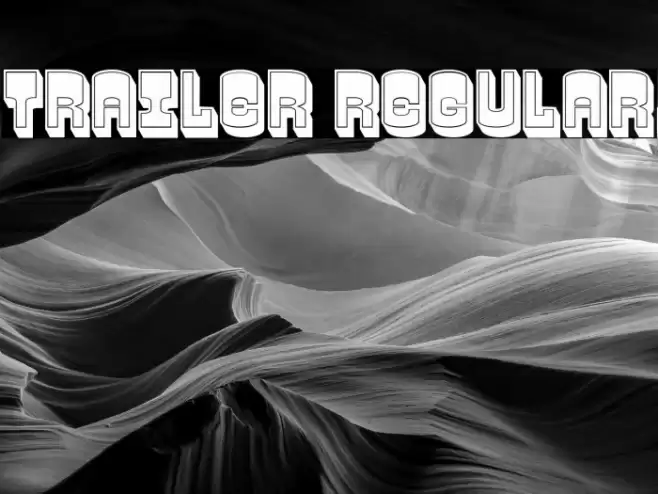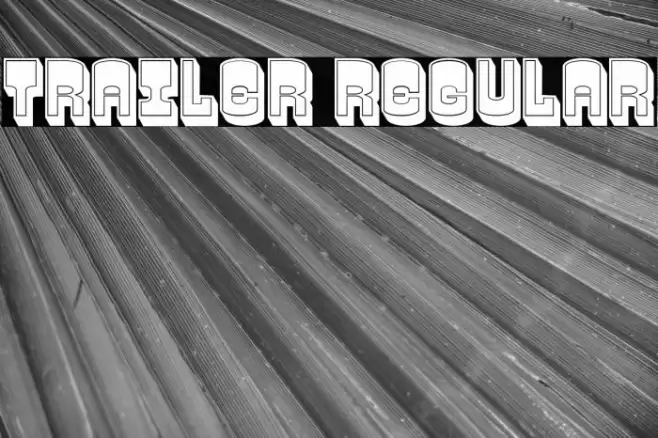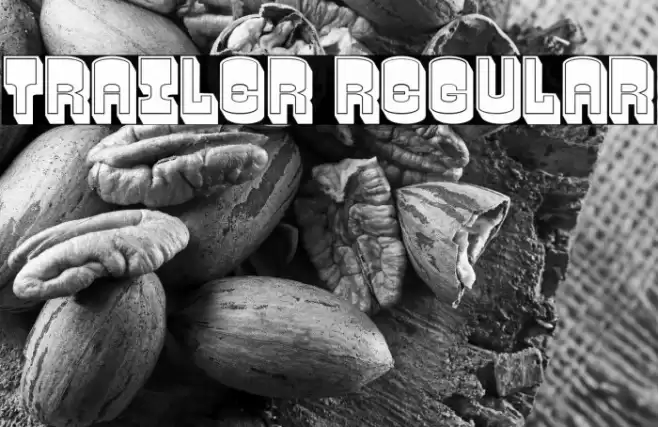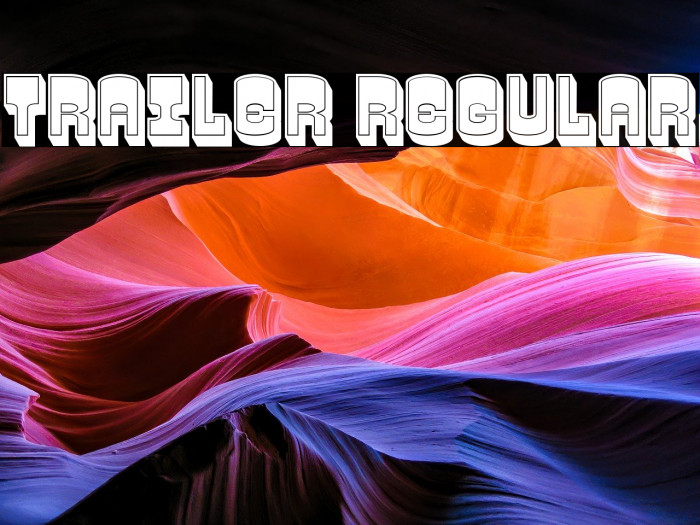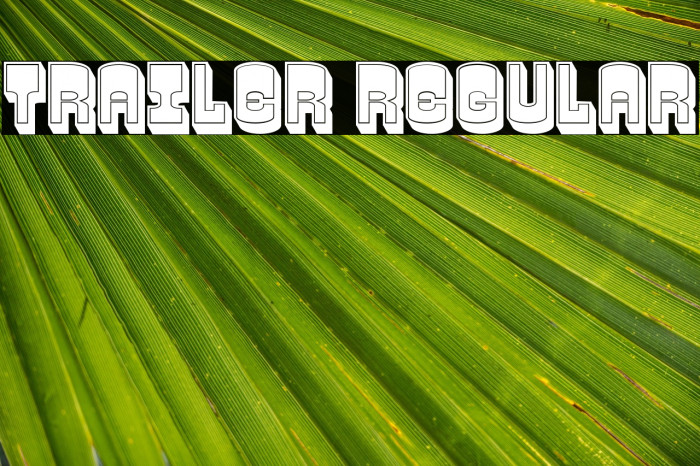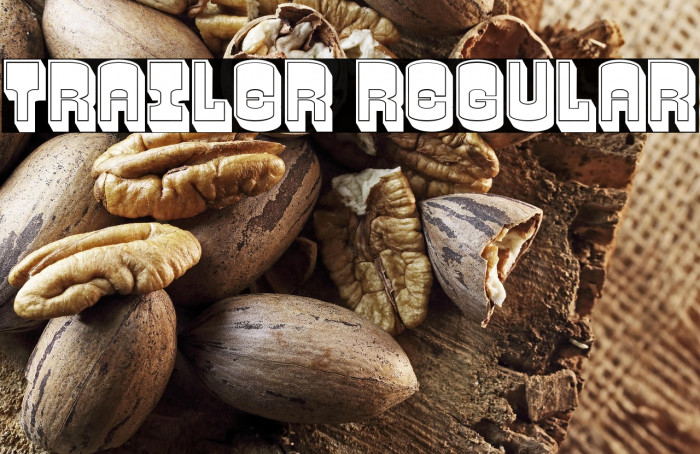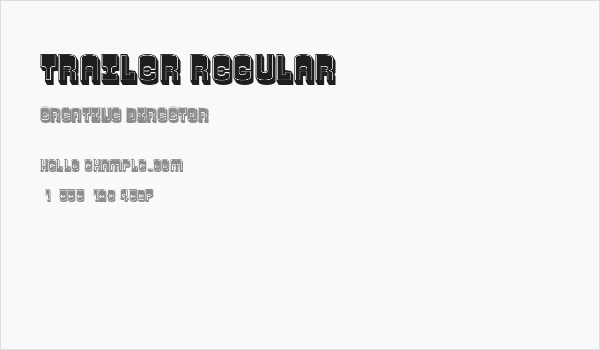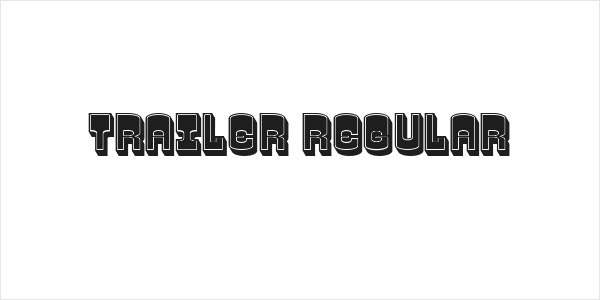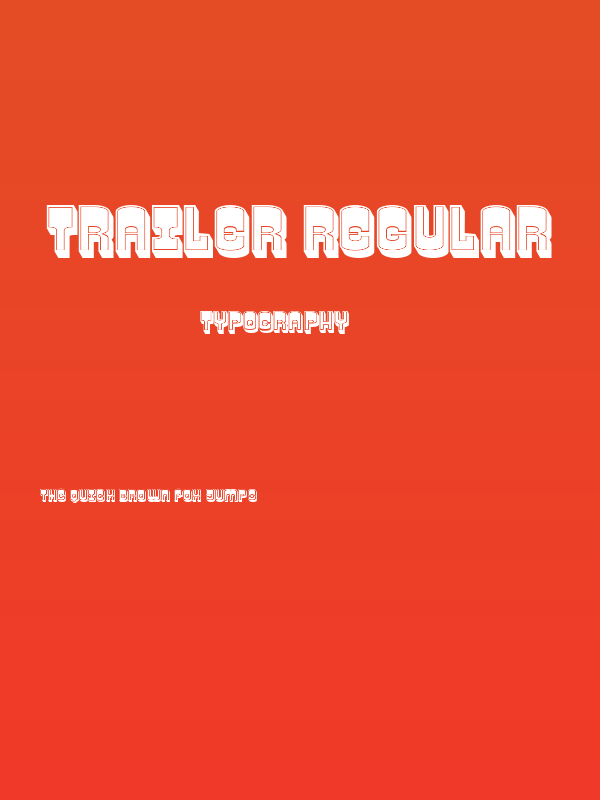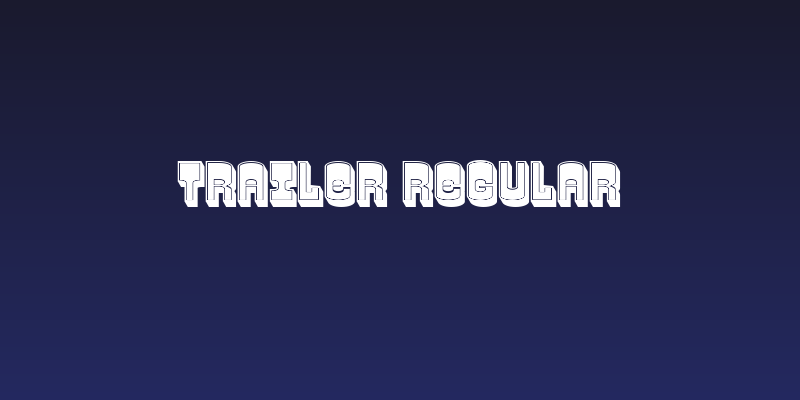
Trailer Regular Font
Trailer Regular Description
This font features a bold, three-dimensional appearance with a strong, impactful presence. The letters are blocky and robust, with a shadow effect that gives them a sense of depth and volume. The design is consistent across both uppercase and lowercase letters, as well as numbers and special characters. The font's style is reminiscent of retro or vintage signage, making it ideal for projects that require a bold statement. Its geometric shapes and clean lines contribute to a modern yet nostalgic feel.
A bold, three-dimensional font with a retro, impactful style from Uncategorized fonts.
- Proposed Projects: Ideal for posters, headlines, logos, and any design needing a strong, vintage-inspired look.
- Overall Style: Vintage